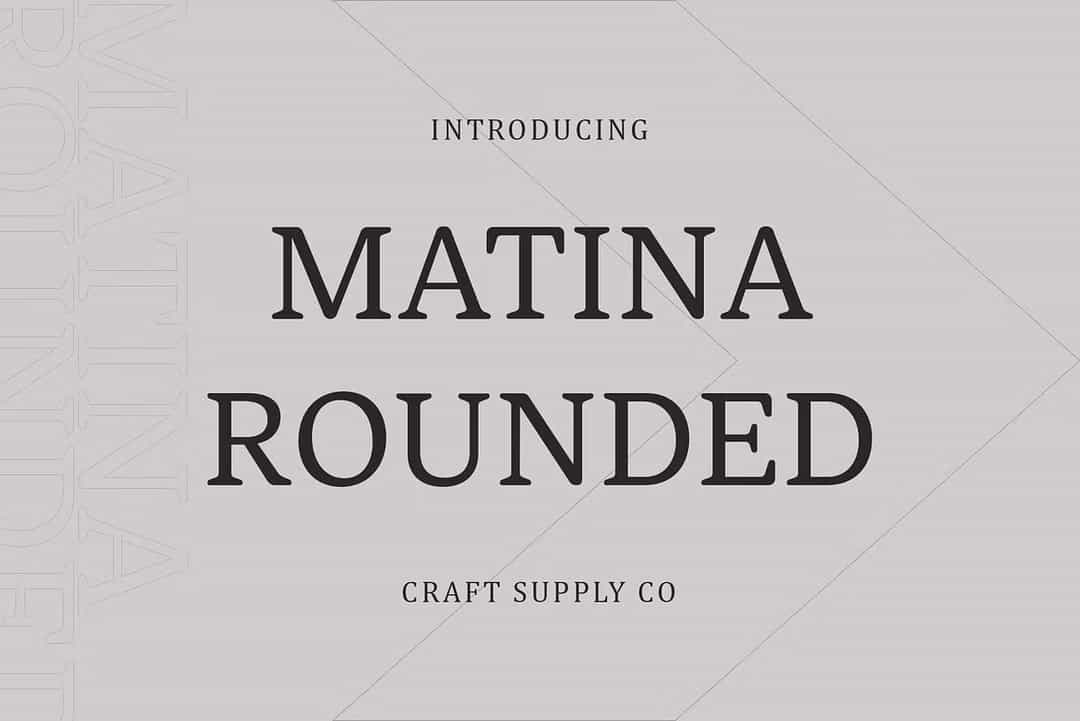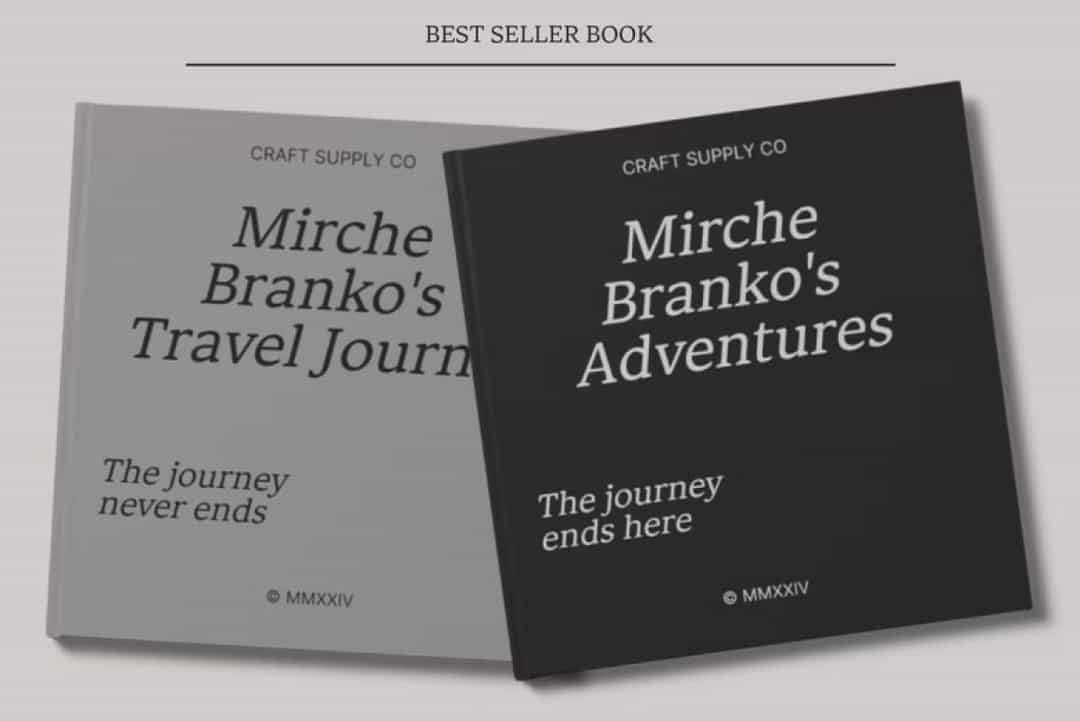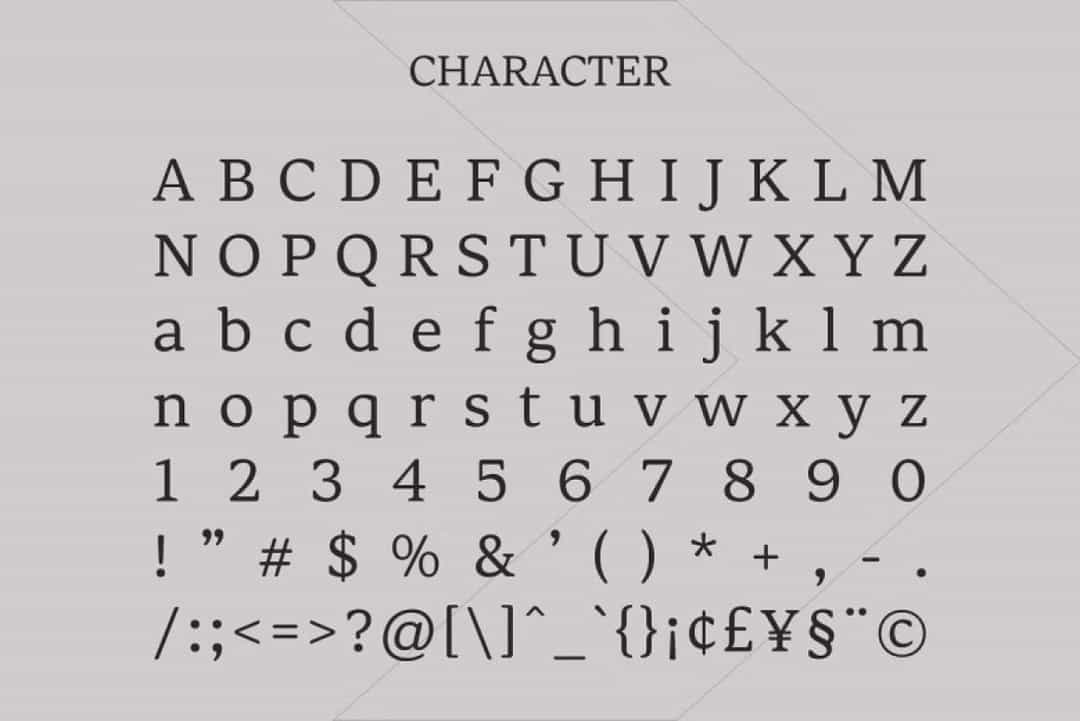
Gentle Contrast Readability Matina Rounded fonts provide a comfortable reading experience in body language with their soft contrast features and their smooth flow for improved readability. Soft Serif Aesthetics This font exudes warmth and friendliness with its gentle serifs and soft curvatures that give its letterforms an inviting appearance that makes for easy long-term reading.